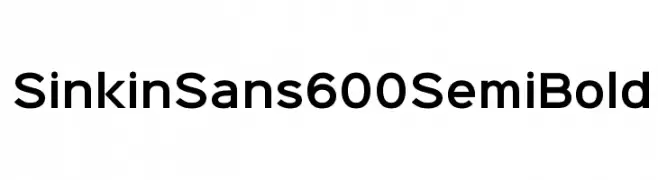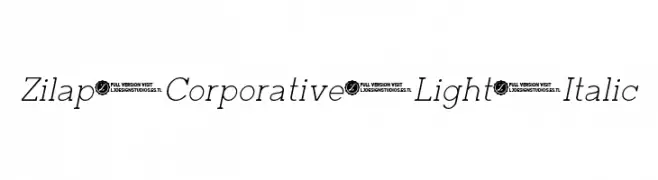
( K-Type - www.k-type.com )
A modern, semi-bold sans-serif font with clean lines and balanced proportions.
( K-Type - www.k-type.com )
A modern, clean sans-serif font with uniform strokes and rounded edges.
( Kchemnad - www.worldofcalligraphy.com )
A thin, geometric font with a modern and minimalistic design.
( LJ Design Studios - www.ljdesignstudios.com )
A sleek, modern, and elegant italic font with light strokes and minimal contrast.
( Lag111 Fonts - lag111.deviantart.com )
An abstract, cryptic font with intricate, bold, and artistic designs.
( Marta van Eck Designs - www.polish-your-art.com/boutique/index.php?main_page=index&cpath=9_14 )
A bold, distressed font with a vintage, grunge aesthetic.
( Michael D. Adams - www.triskele.com/roadgeek-fonts/ )
A modern, highly legible sans-serif font ideal for signage and clear communication.
( Nght's Place - www.crosswinds.net/~nghtmvs/font/fonts1.html )
A playful, illustrative font with embedded images for each character, ideal for educational use.
( Rogier van Dalen - home.kabelfoon.nl/~slam/fonts/fonts.html )
A modern, geometric sans-serif font with balanced proportions and high readability.
( Shara Weber - sharasfonts.com )
A light, handwritten-style font with an italic slant and consistent stroke thickness.